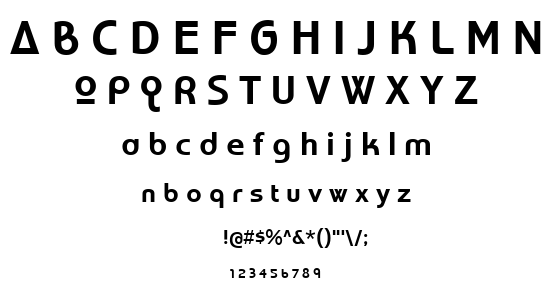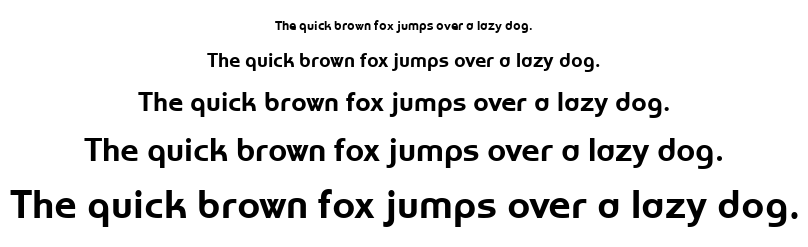
World of Water
World of Water is an alt-universe, Art Nouveau display font. Don’t forget to read the files inside the zip for details. Updated in 2012.